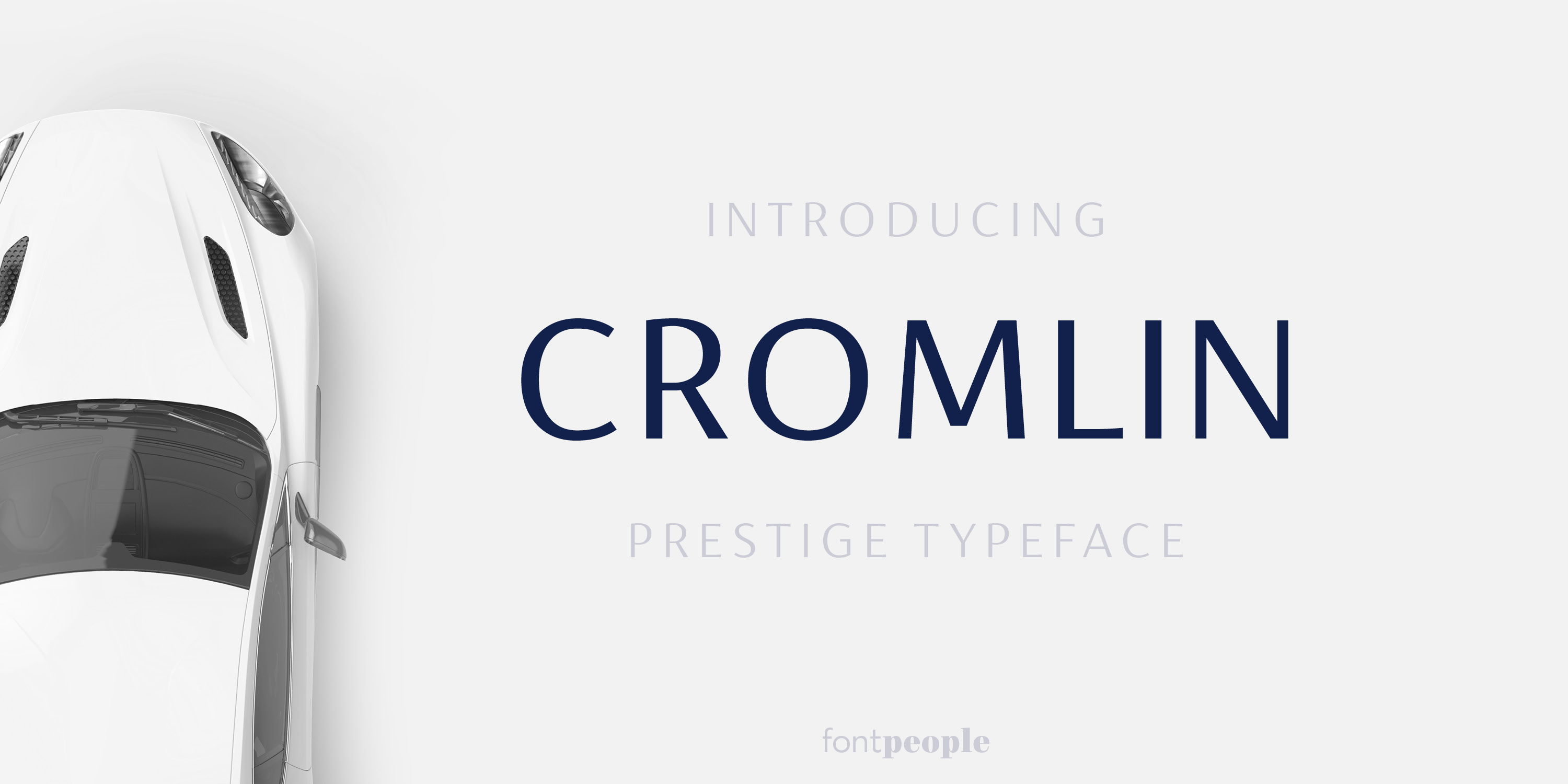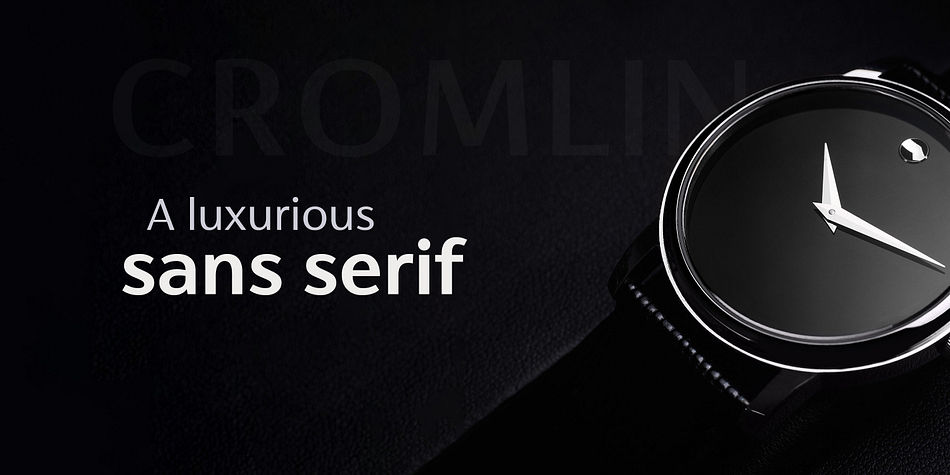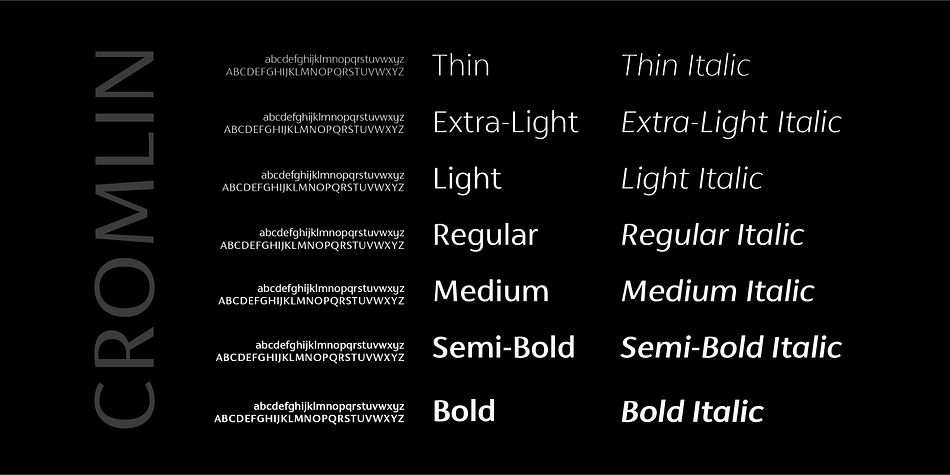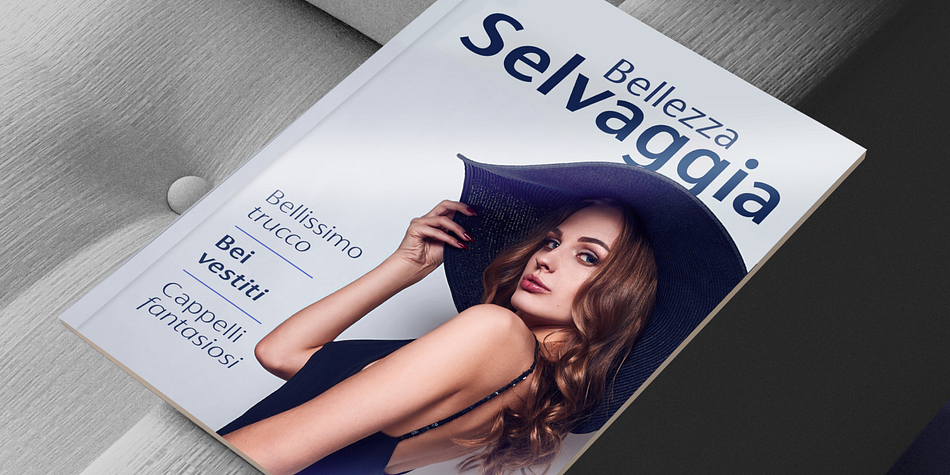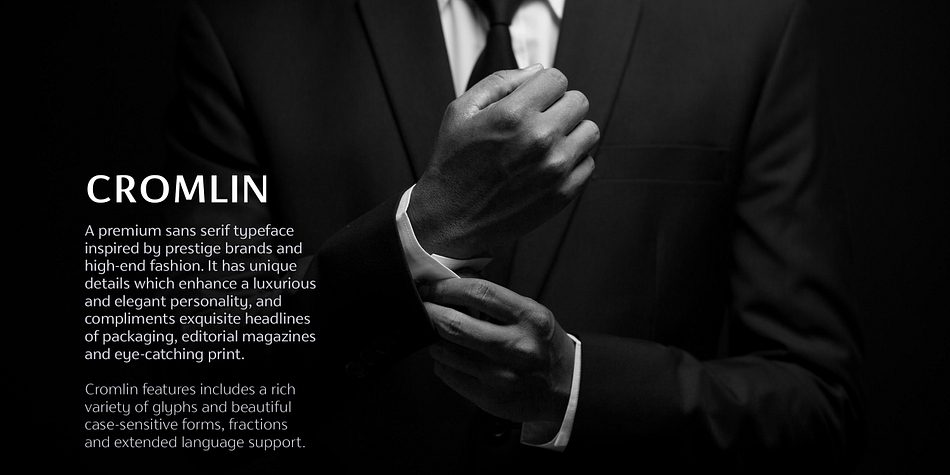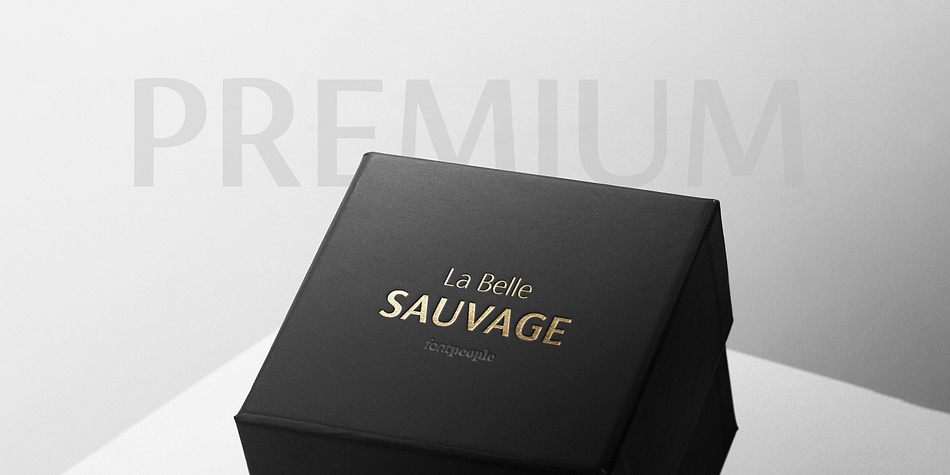
Designed by Jörn Oelsner, Cromlin is a sans serif font family. This typeface has fourteen styles and was published by FontPeople.
Cromlin is Welsh for curve. Cromlin is a typeface with its origins in classical Roman lettering that exudes luxury and finesse. Perfect for branding and body copy this font is as delicious at 10pt as it is as a display typeface.